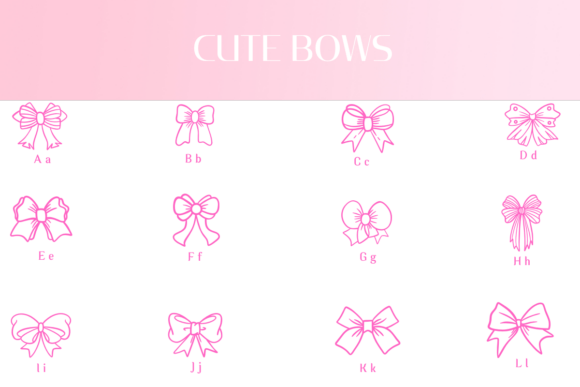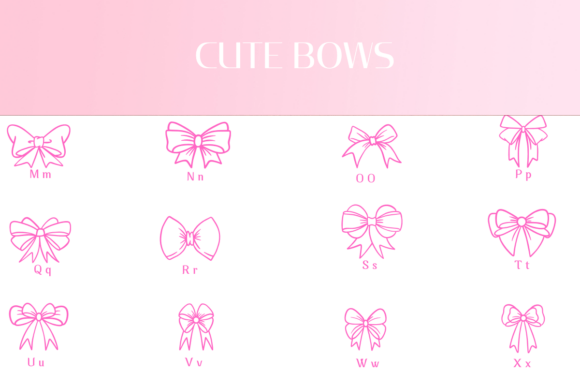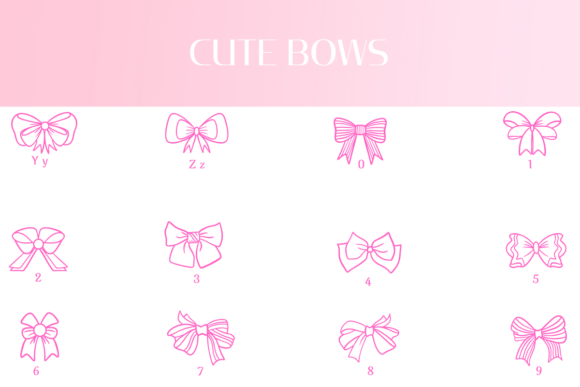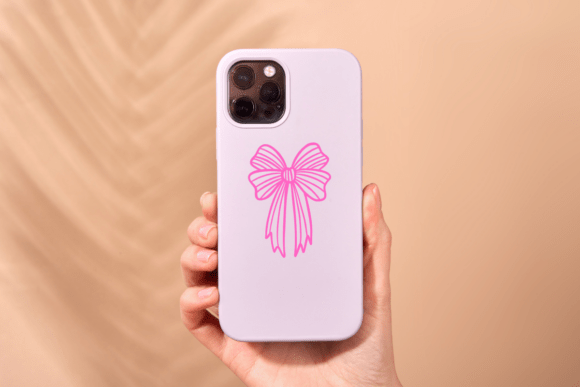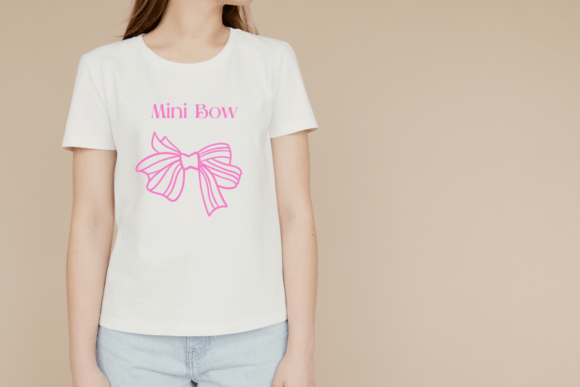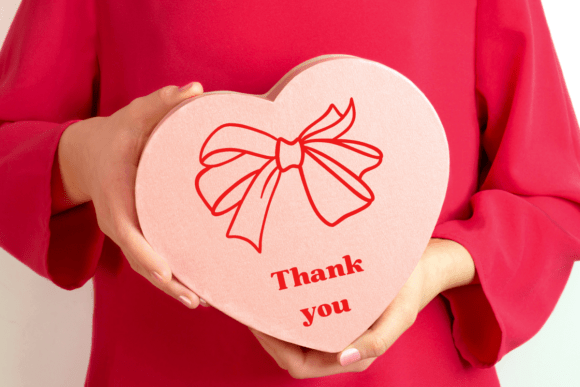
Introduction to Cute Bows Font
Cute Bows Dingbats Font is a charming and versatile decorative typeface designed especially for creatives who want to add a playful, feminine touch to their projects.
Packed with beautifully illustrated bow silhouettes, this font transforms every character into a stylish dingbat that works perfectly for branding, packaging, stationery, digital designs, crafts, and social media graphics Each bow has its own unique personality, from delicate outlines to bold ribbon shapes, giving designers endless ways to customize layouts and elevate visual appeal.
Key Features of Cute Bows Font
Why Choose Cute Bows Font?
Cute Bows Font offers exceptional quality and versatility, making it a valuable addition to your design toolkit. Whether you’re creating for personal projects or commercial use, Cute Bows Font delivers professional results.